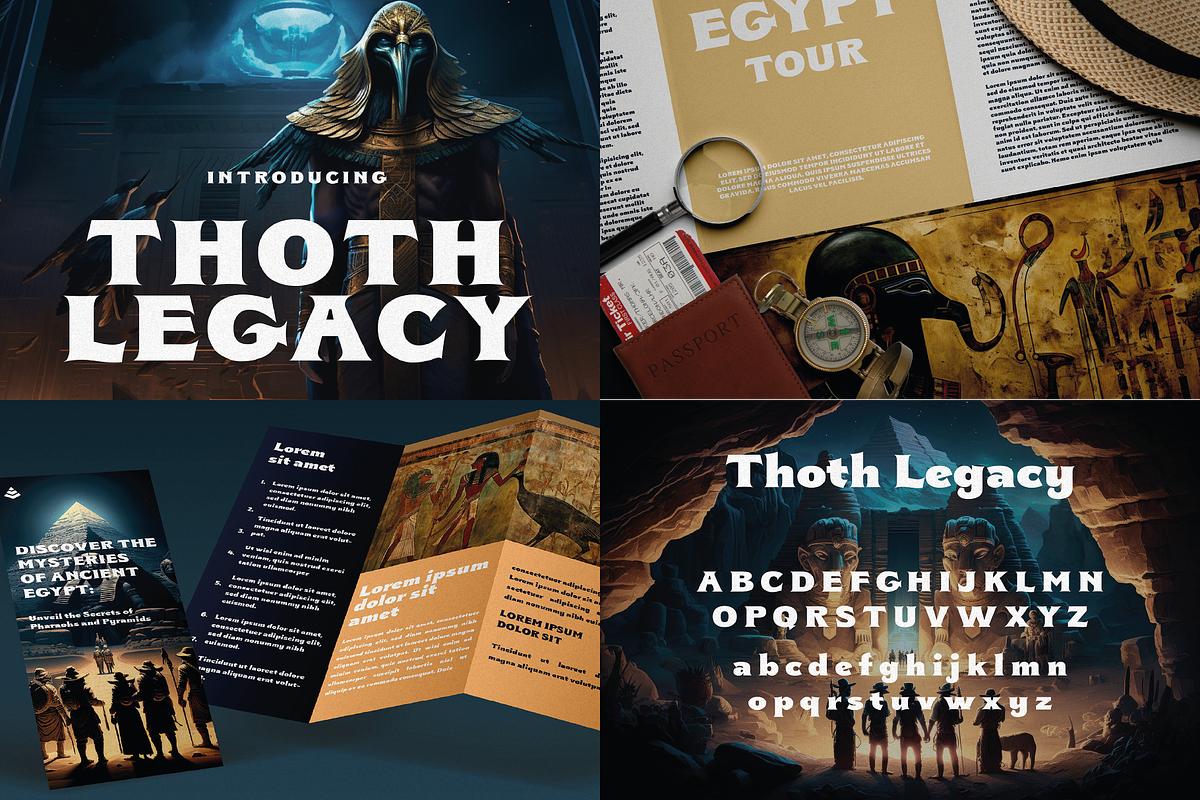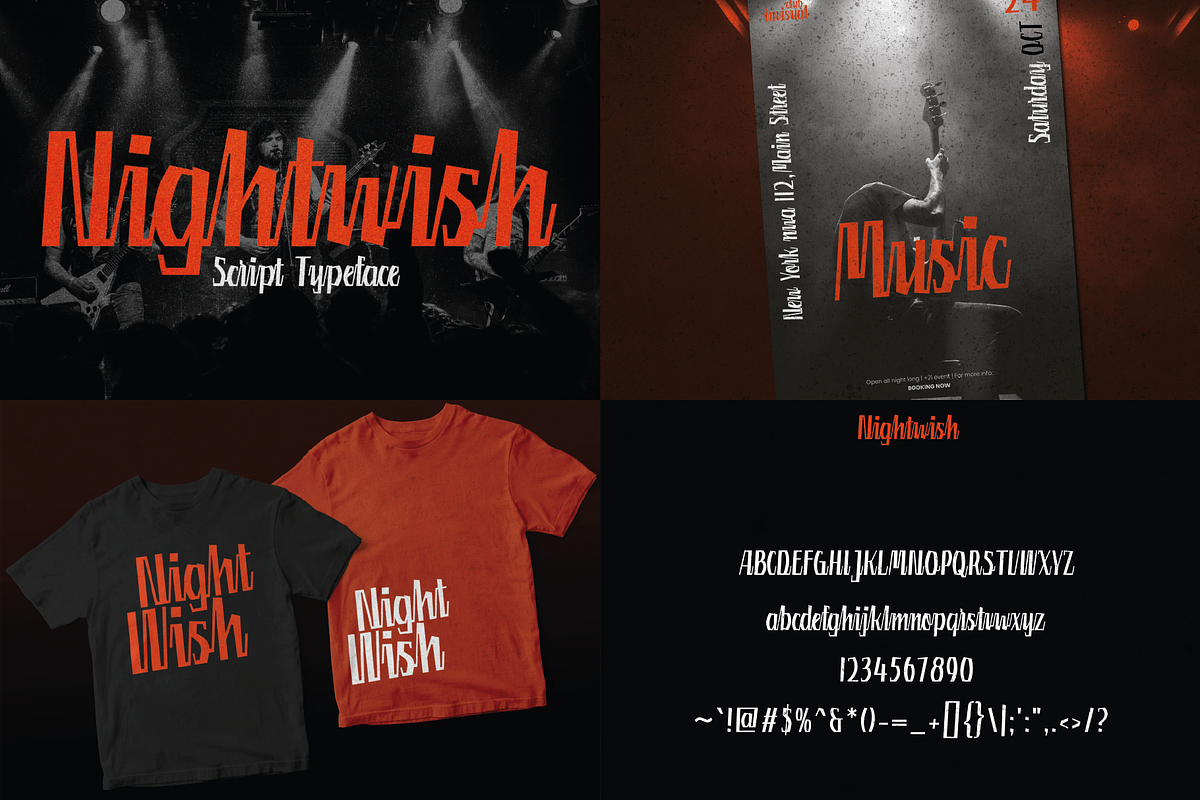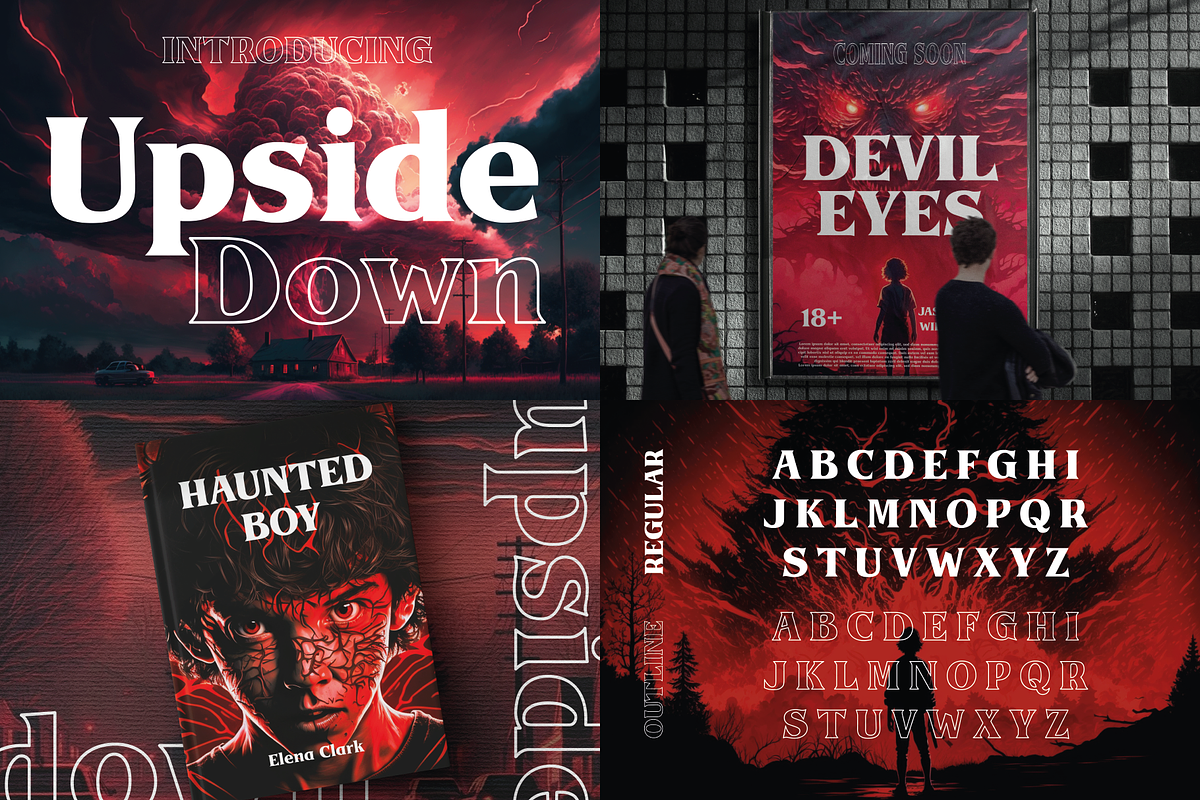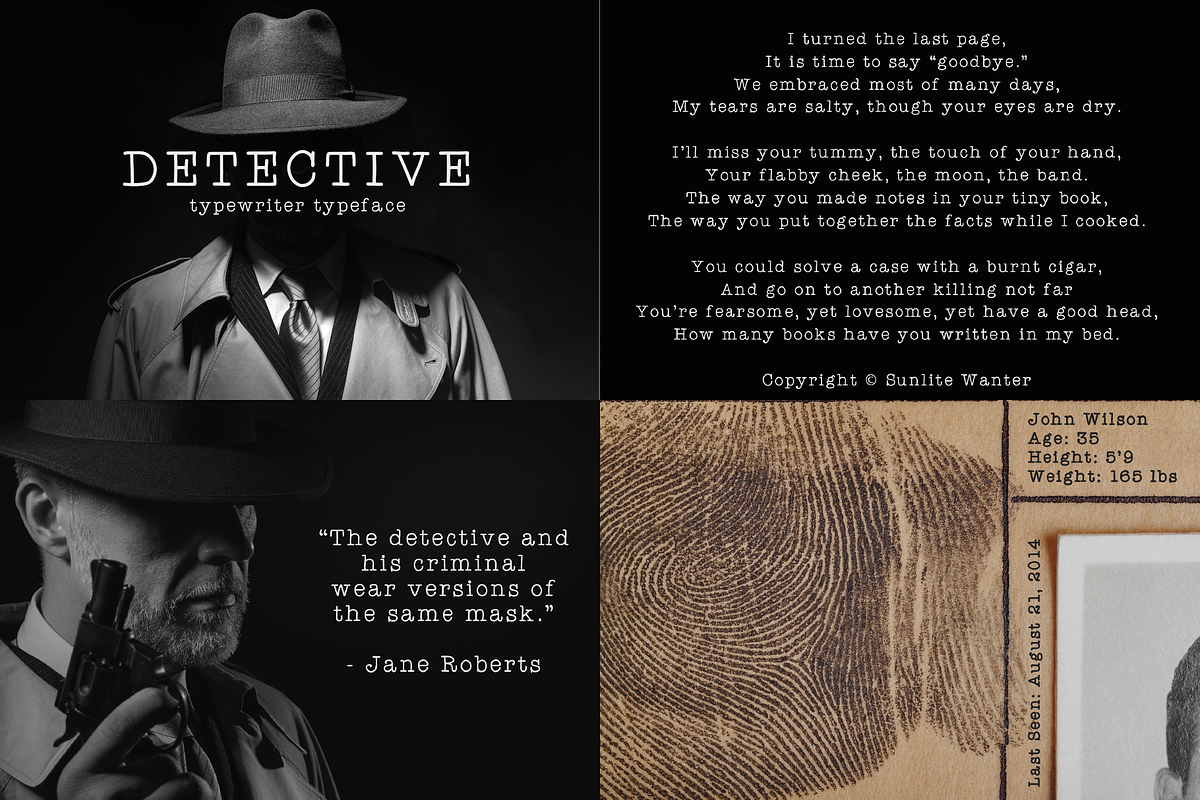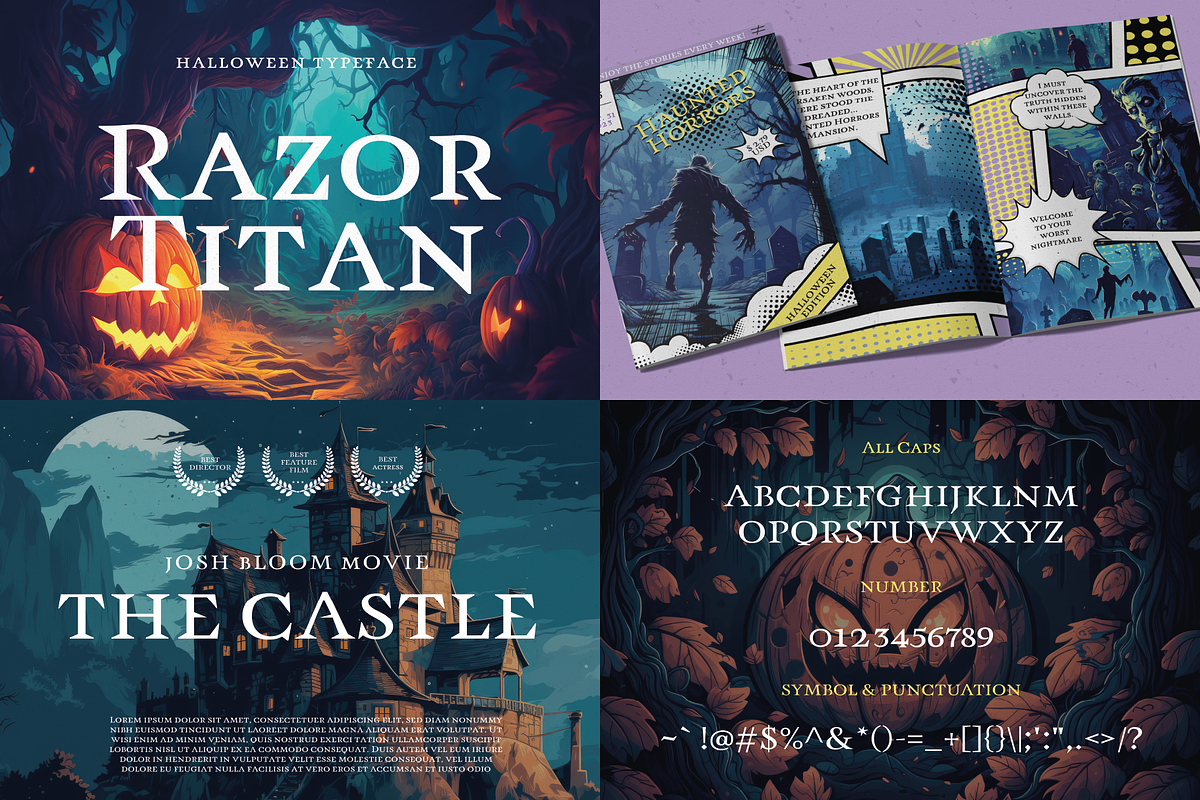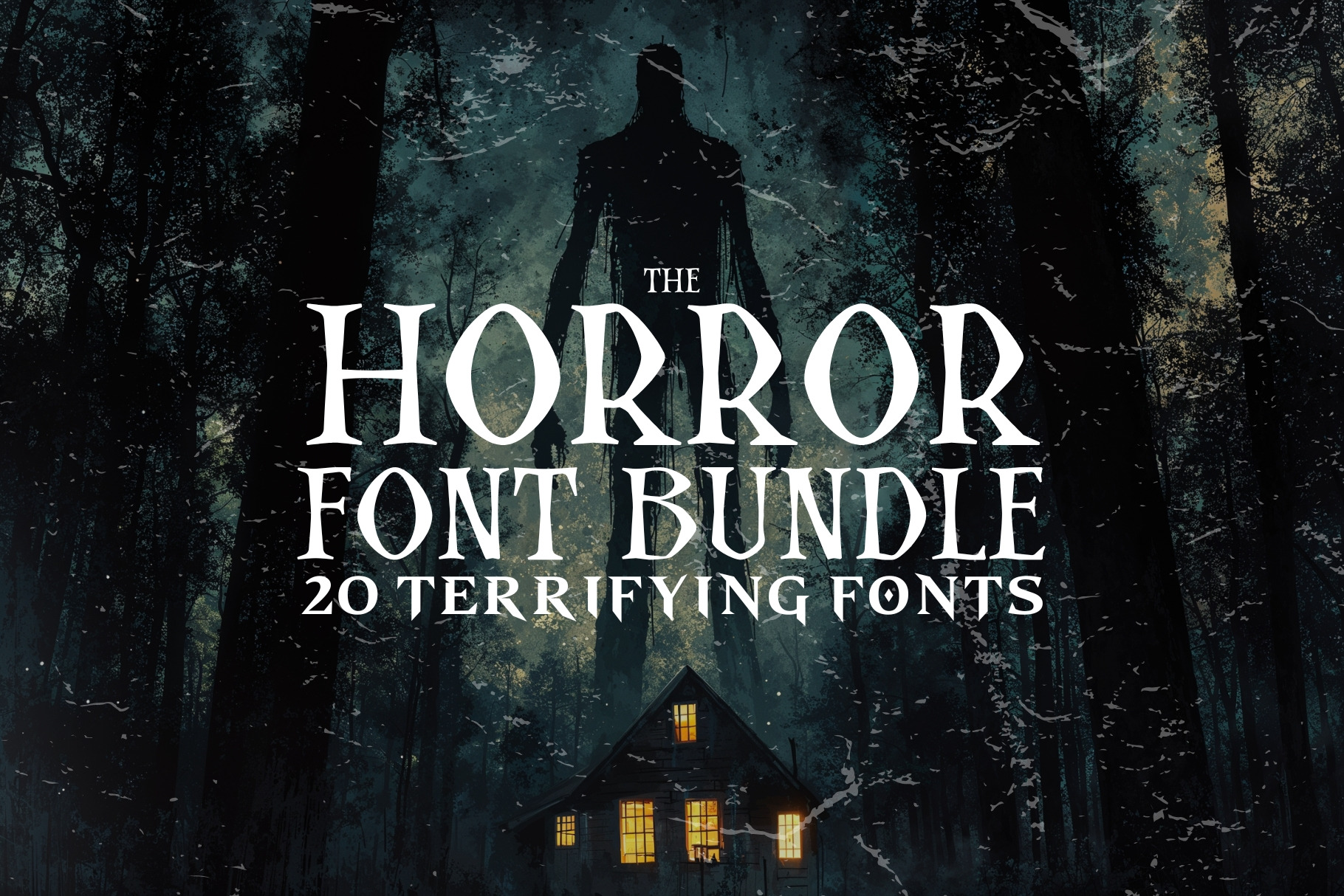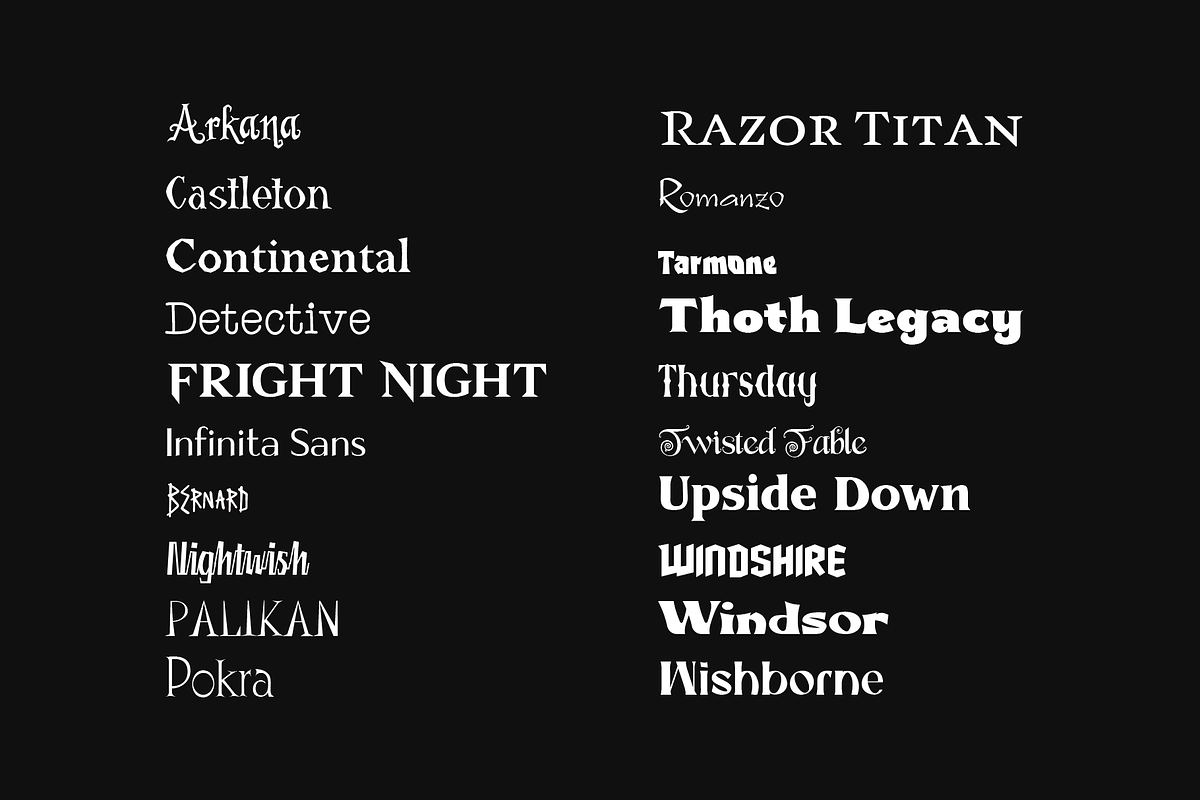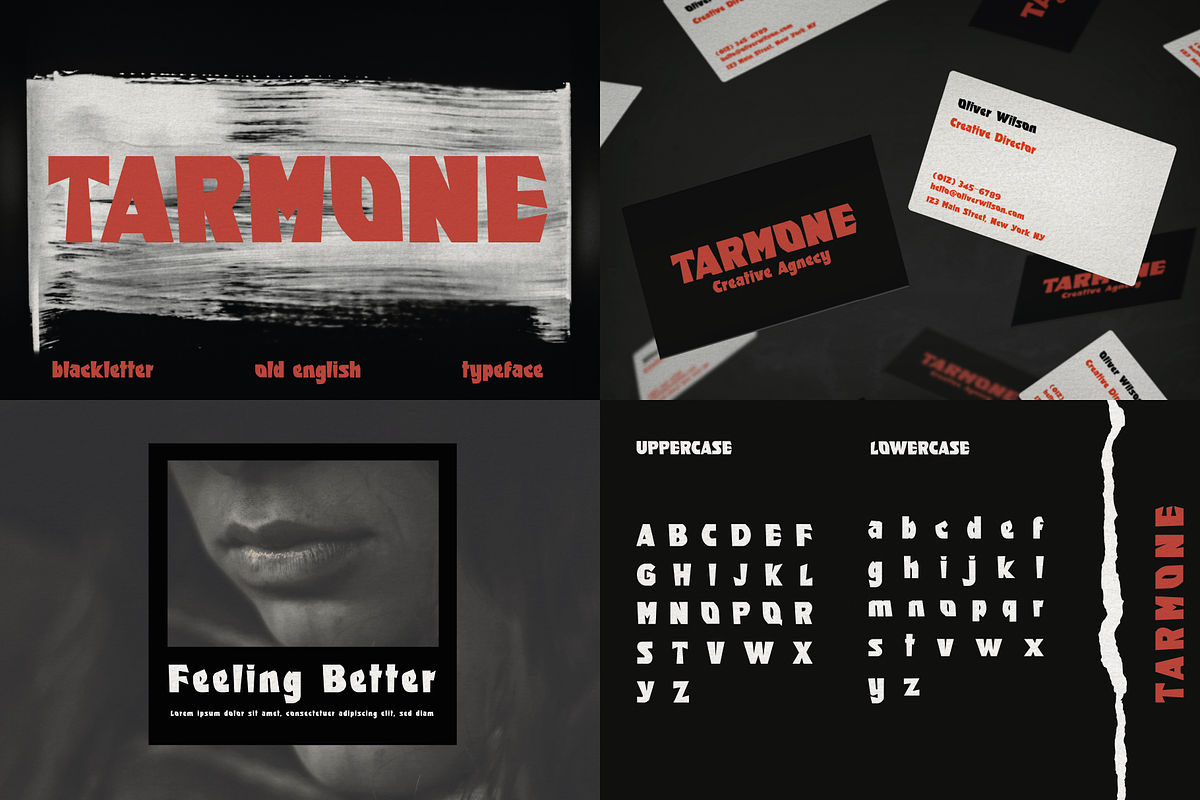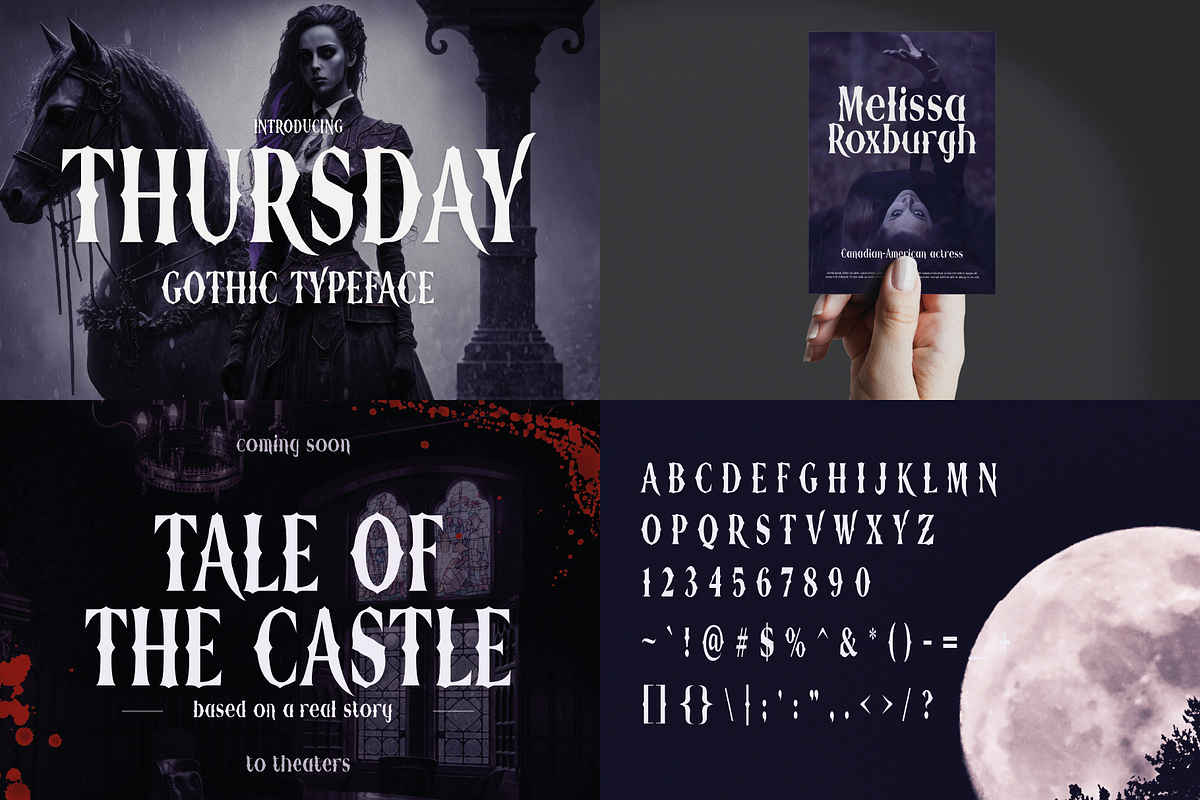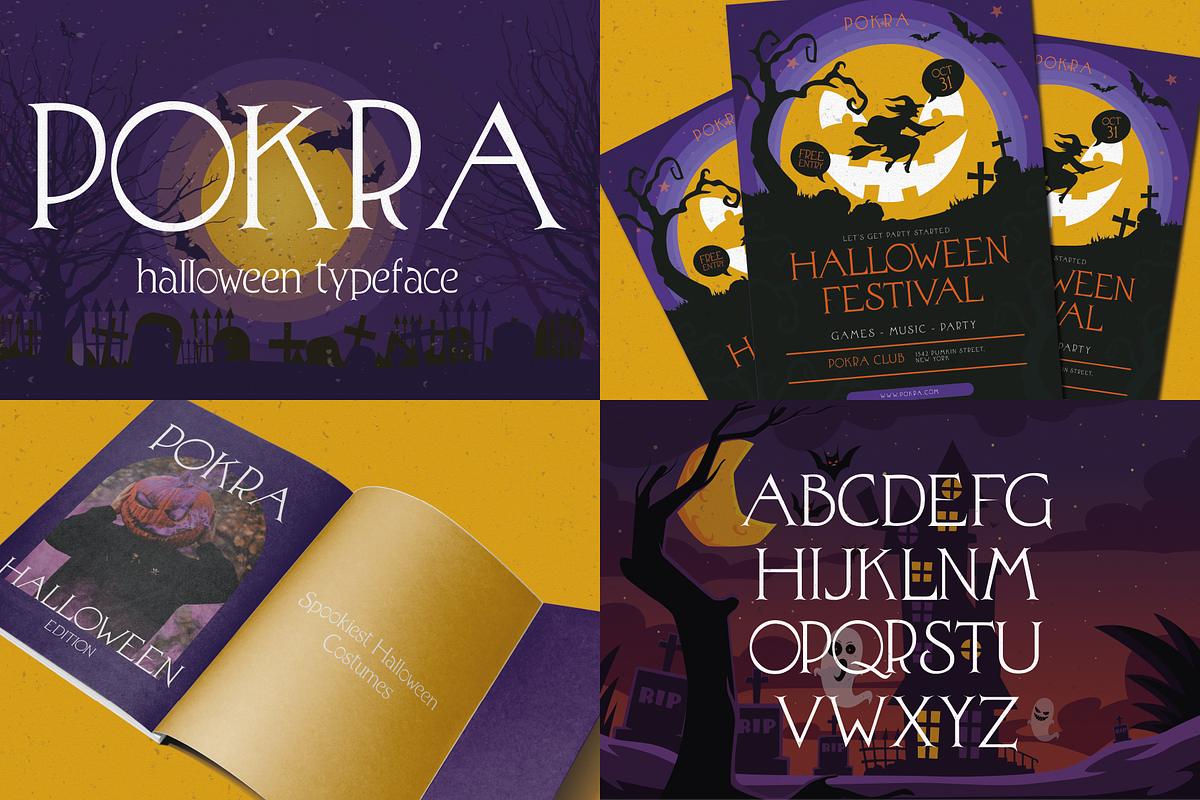
The Halloween Horror Font Bundle
Unleash the shadows of creativity with the Horror Font Bundle, a chilling collection designed to invoke the eerie, the spooky, and the outright terrifying in your design projects. With 20 unique fonts, each more bone-chilling than the last, this bundle is the ultimate toolkit for designers, creatives, and horror enthusiasts who dare to explore the dark corners of art and storytelling.
Crafted for those who thrive on the thrill of the scare, the Horror Font Bundle offers an unparalleled selection of typefaces that embody the essence of fear and fantasy. From the twisted curves of haunted calligraphy to the sharp edges of terror-inducing typography, each font has been meticulously selected to bring your nightmares to life. Whether you're designing the next great horror movie poster, crafting an invitation to a haunted house, or setting the scene for a ghostly tale, these fonts provide the perfect medium for your message to break through the veil between worlds.
The Horror Font Bundle is not just about the aesthetics of fear; it's about setting a mood, creating an atmosphere, and telling a story. The fonts within are versatile enough to cover a range of horror sub-genres, from gothic to supernatural, psychological thrillers to classic monster tales. Each font serves as a brushstroke in the larger picture of your creation, allowing you to paint with the full spectrum of terror.
Dive into the darkness with the Horror Font Bundle and let your designs haunt the imagination of your audience. This collection is more than just fonts; it's a portal to the other side, where every letter and stroke brings you closer to the heart of horror.